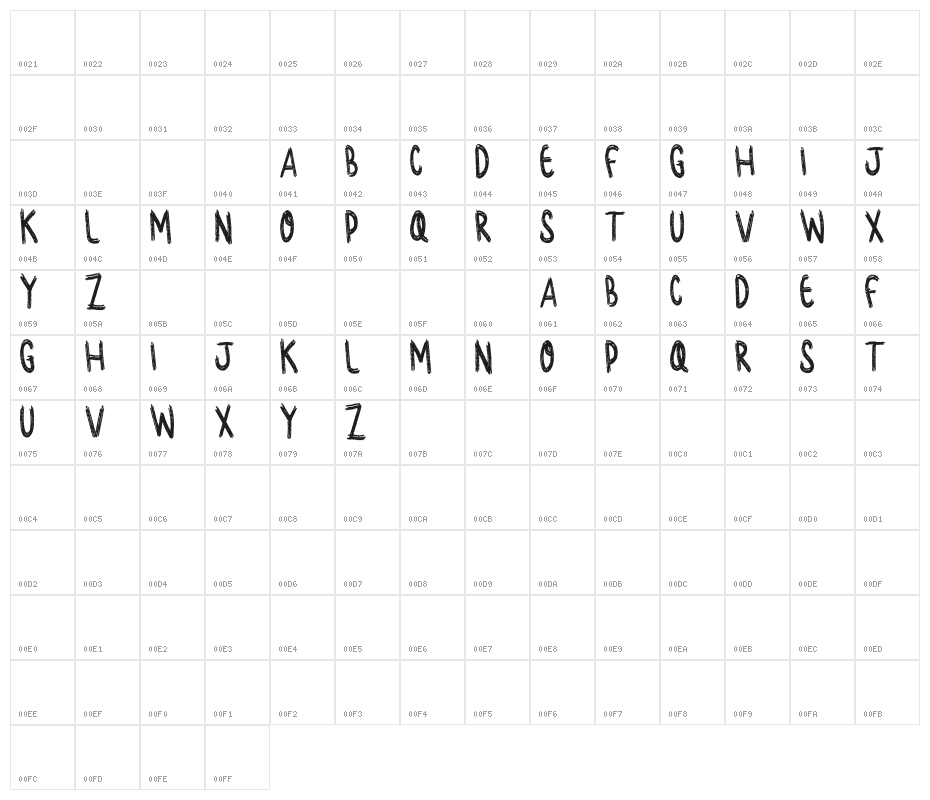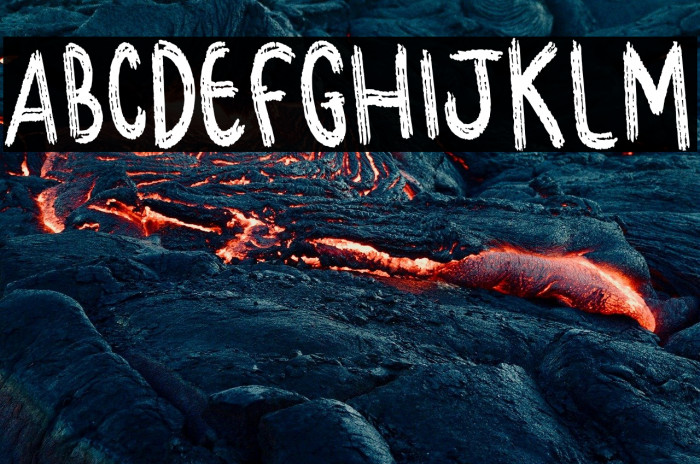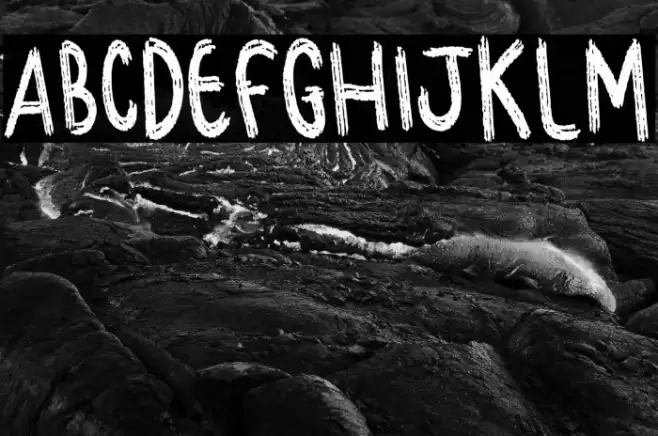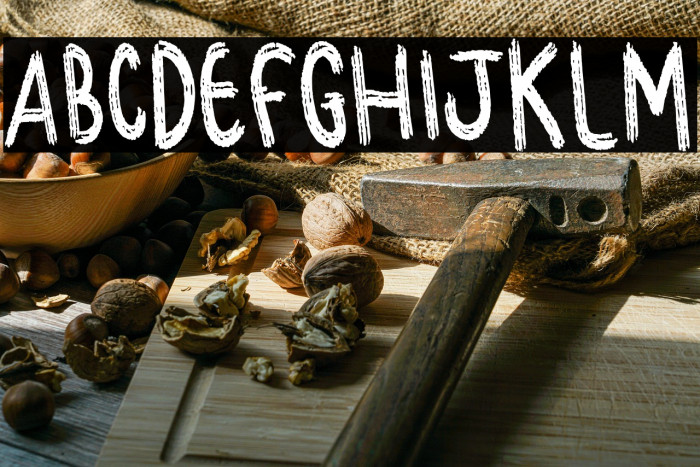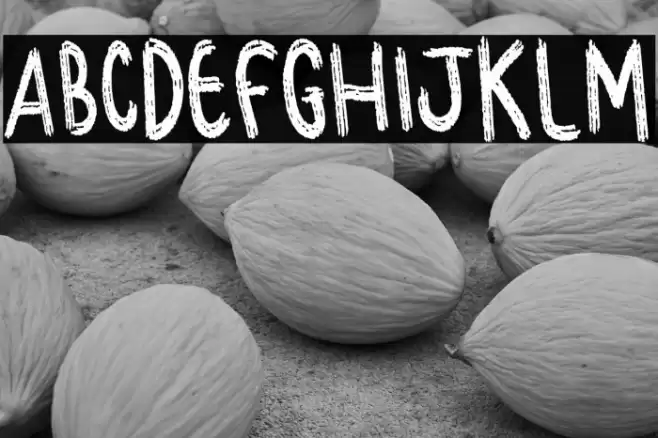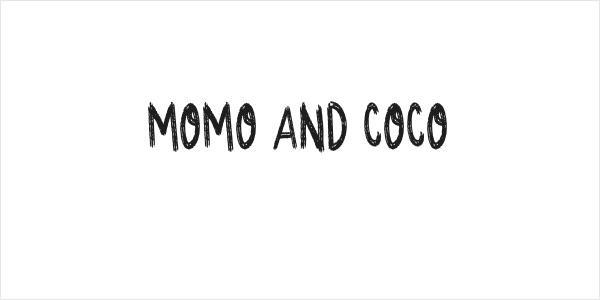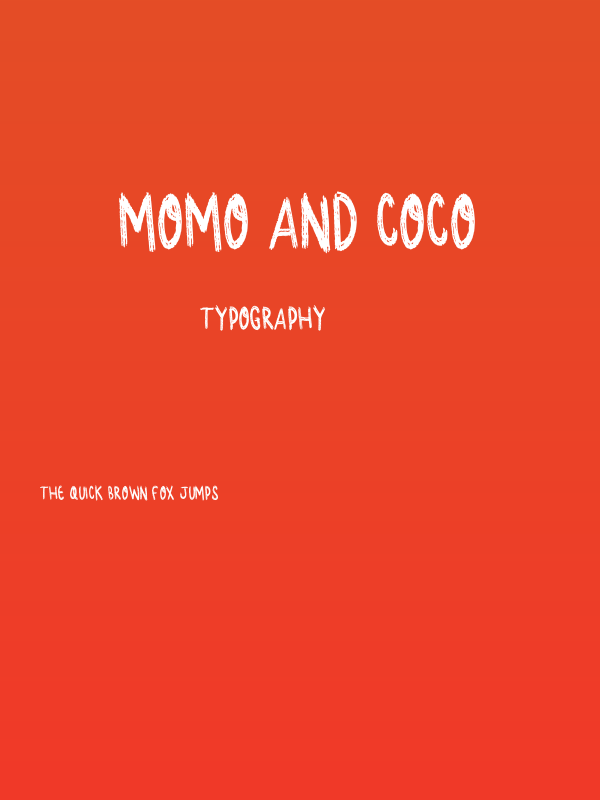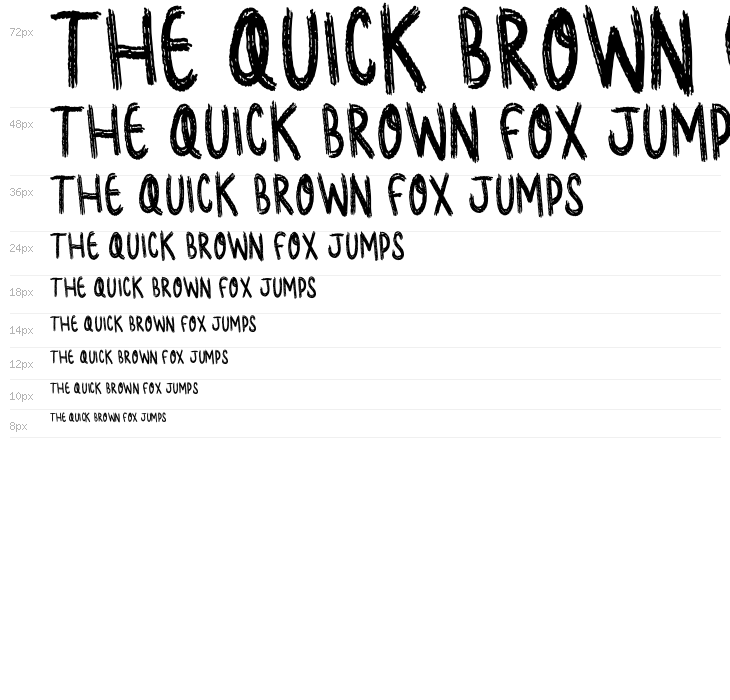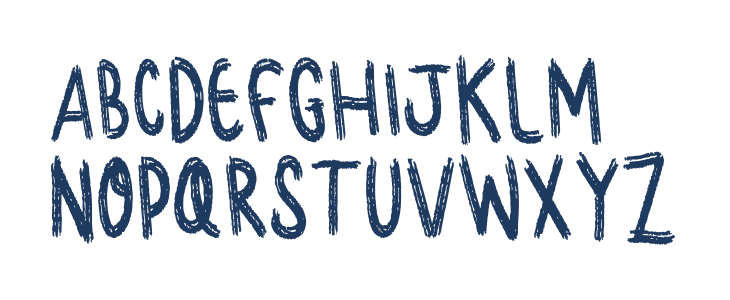
Momo And Coco Font
Momo And Coco Description
This font features a bold, hand-drawn style with a rough, textured appearance. Each letter is crafted with a brush-like effect, giving it a dynamic and energetic feel. The strokes are uneven, adding a sense of authenticity and rawness to the design. The uppercase letters are prominent and slightly irregular, enhancing the font's playful and artistic character. This font is ideal for projects that require a personal touch or a creative flair, such as posters, artistic branding, or any design that aims to stand out with a unique and handcrafted look.
| Proposed Projects | Ideal for posters, artistic branding, creative projects, and designs needing a unique, handcrafted look. |